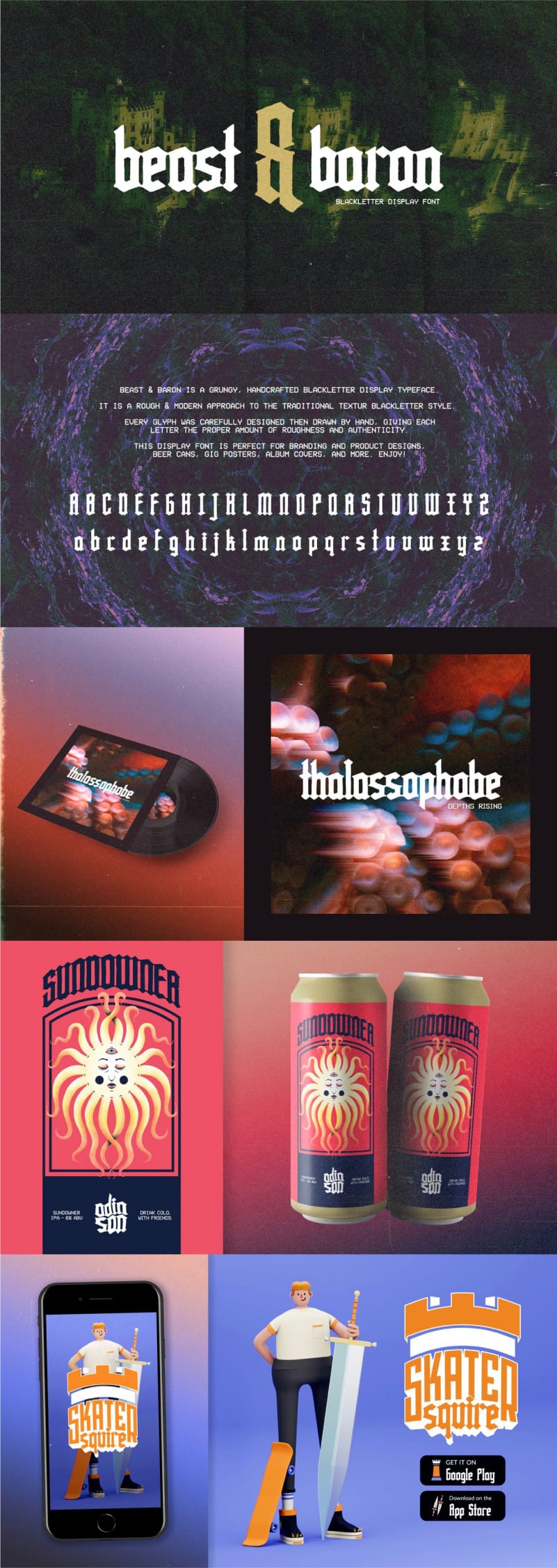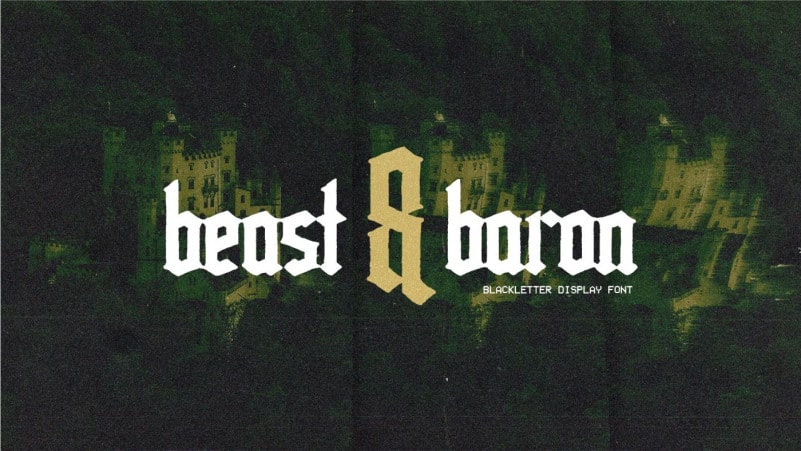
Beast & Baron Blackletter Font
Beast & Baron Blackletter Font is an incredibly authentic and daring blackletter font. This typeface is a grungy, handcrafted display typeface created by Caleb Brand. It is a rough & modern approach to the traditional textured blackletter style.
Every glyph was carefully designed & drawn by hand, giving each letter the proper amount of roughness and authenticity.
This display font is perfect for branding and products designs, beer cans, gig posters, album cover & more!